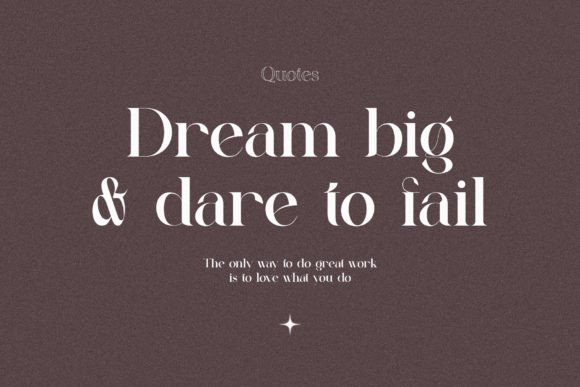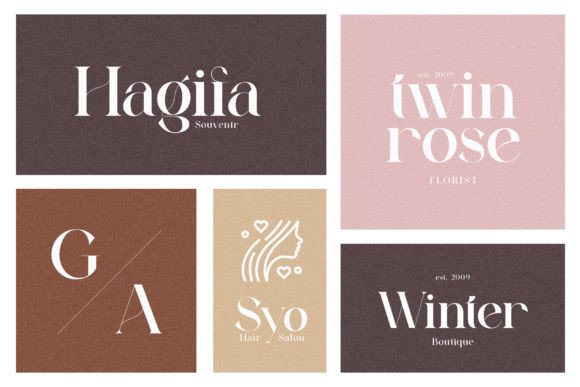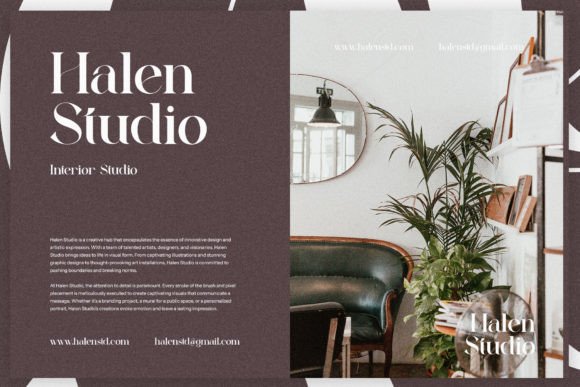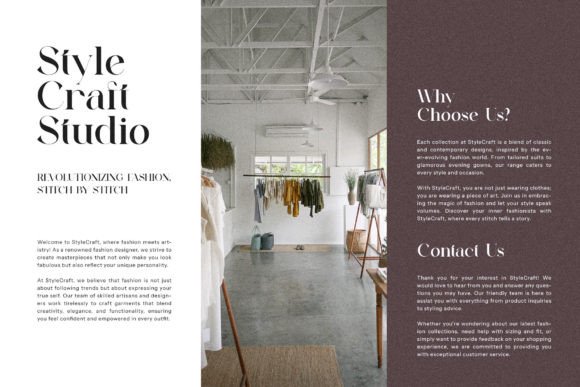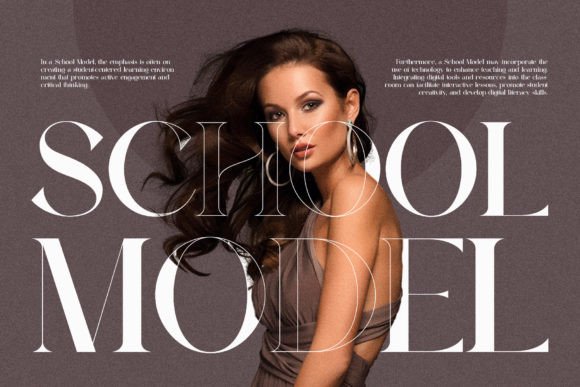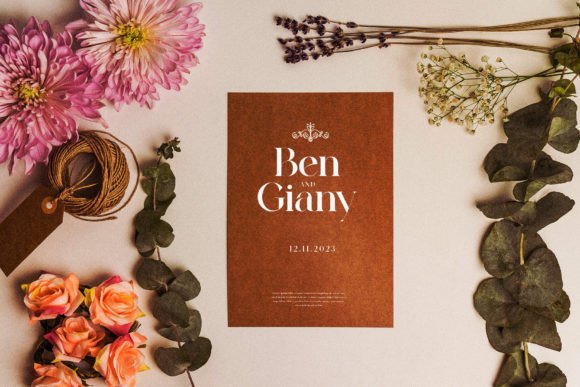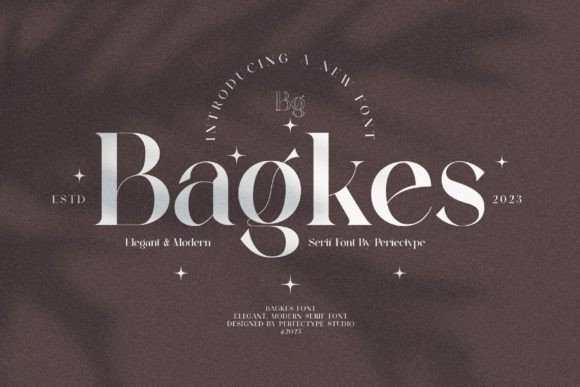
Introducing Bagkes Font: Elevate Your Designs with Elegance and Sophistication
In the world of design, typography plays a crucial role in conveying the tone and personality of a brand. A well-chosen font can make all the difference in creating a lasting impression on your audience. If you’re a designer or craftsperson looking for a unique and elegant font to elevate your designs, look no further than Bagkes Font. This stunning serif typeface combines classic sophistication with modern style, making it perfect for a wide range of design applications.
What is Bagkes Font?
Bagkes Font is a distinctive and refined font designed specifically for branding and logo designs. Its elegant serif typeface is crafted to provide a classy and modern aesthetic, making it an ideal choice for designers seeking to create sophisticated and eye-catching designs. Whether you’re working on a branding project, logo design, or any other visual material, Bagkes Font is sure to impress.
Key Features of Bagkes Font
• Elegant Serif Typeface: Bagkes Font boasts a beautiful serif typeface that exudes elegance and refinement.
• Classy and Modern Style: The font’s design combines classic sophistication with a modern twist, making it perfect for a wide range of design applications.
• High Readability: Bagkes Font is created with a high level of readability, ensuring that your designs are not only visually stunning but also easy to read.
• Versatile: This font is suitable for various design needs, including branding projects, logos, wedding designs, social media posts, advertisements, product packaging, product designs, labels, photography, watermarks, invitations, stationery, and more.
Use Cases for Bagkes Font
Bagkes Font is an incredibly versatile font that can be used in a variety of design applications. Here are some examples of how you can use this stunning font:
• Branding Projects: Create a lasting impression on your audience with a professional and elegant brand identity.
• Logo Designs: Design a unique and memorable logo that showcases your brand’s personality.
• Wedding Designs: Add a touch of elegance to your wedding designs, including invitations, stationery, and more.
• Social Media Posts: Elevate your social media presence with eye-catching and engaging posts.
• Advertisements: Create stunning advertisements that grab the attention of your target audience.
• Product Packaging: Design beautiful and functional product packaging that stands out on store shelves.
• Product Designs: Create visually appealing product designs that showcase your brand’s style and personality.
• Labels: Design elegant and informative labels for your products.
• Photography: Add a touch of sophistication to your photography with beautiful watermarks and overlays.
• Invitations: Create stunning invitations for special occasions, including weddings, parties, and more.
• Stationery: Design elegant and professional stationery, including business cards, letterheads, and more.
Why Choose Bagkes Font?
With so many fonts available, why choose Bagkes Font? Here are just a few reasons why this font stands out:
• Unique and Elegant: Bagkes Font offers a distinctive and refined aesthetic that’s sure to elevate your designs.
• Highly Versatile: This font can be used in a wide range of design applications, making it a valuable addition to your font library.
• Easy to Read: Bagkes Font is designed with readability in mind, ensuring that your designs are clear and easy to understand.
• Professional and Sophisticated: This font exudes professionalism and sophistication, making it perfect for designs that require a high level of elegance.
Font Name Bagkes Font
If you’re looking for a unique and elegant font to elevate your designs, look no further than Bagkes Font. With its elegant serif typeface, classy and modern style, and high readability, this font is perfect for a wide range of design applications. From branding projects and logo designs to wedding designs and social media posts, Bagkes Font is sure to impress. Add this stunning font to your library today and take your designs to the next level.